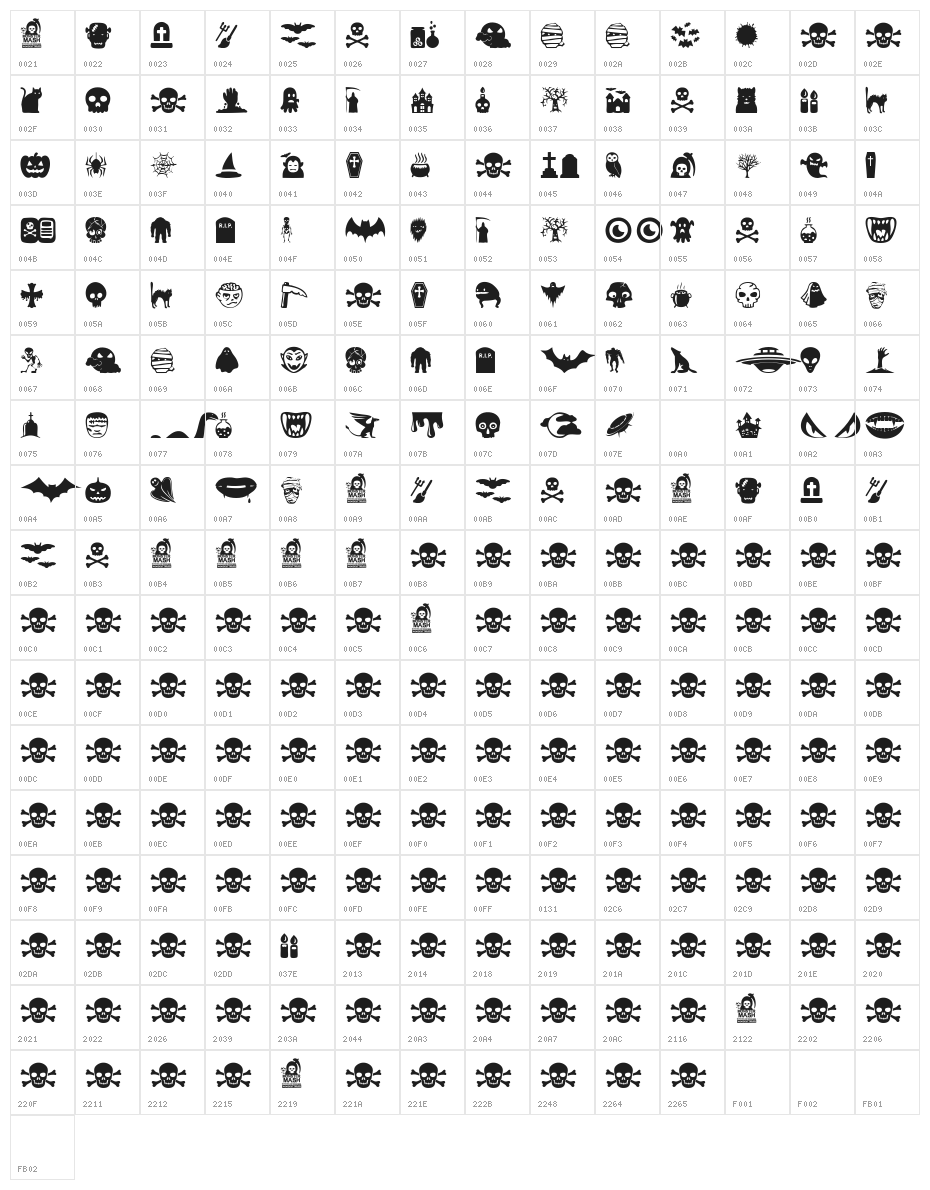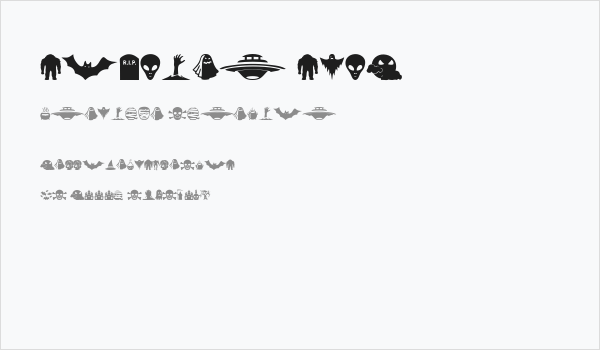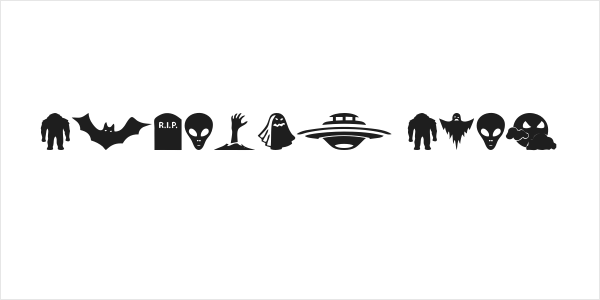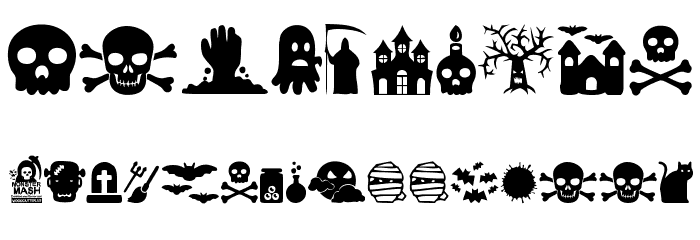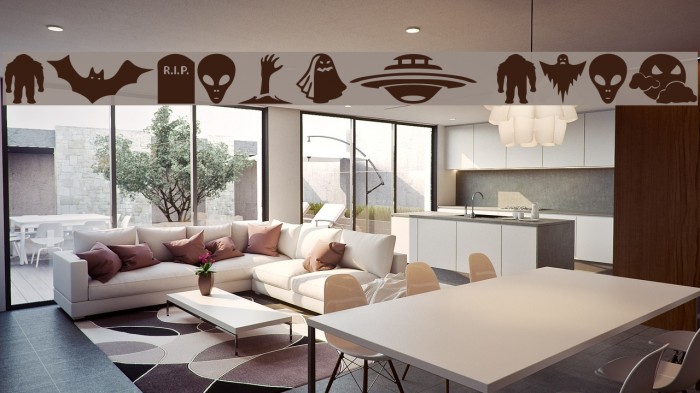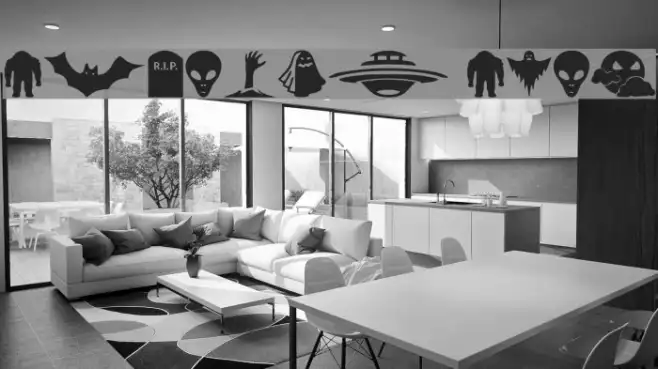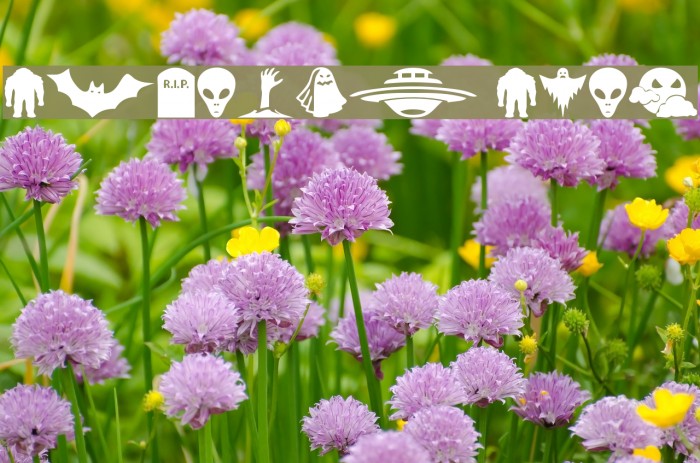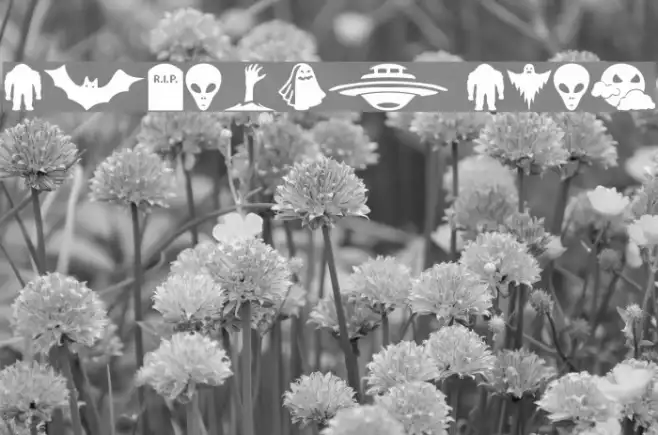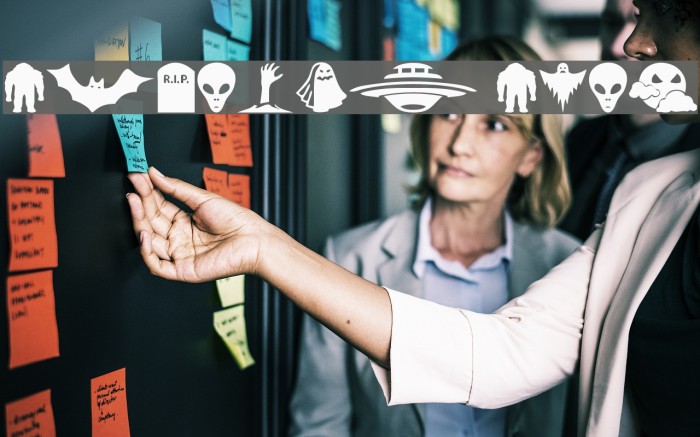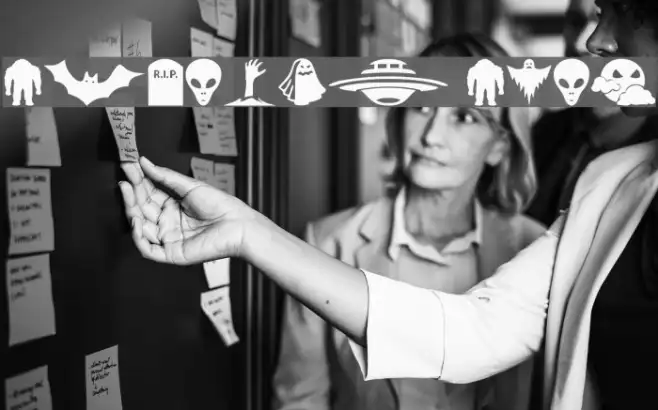
Monster Mash Font
Monster Mash Description
This collection features a playful and spooky array of Halloween-themed icons. Each character is designed with bold, solid black silhouettes, capturing the essence of classic horror motifs. The set includes a variety of symbols such as skulls, bats, ghosts, tombstones, and other eerie elements. The designs are simple yet effective, with a focus on recognizable shapes that convey a sense of fun and fright. These icons are perfect for adding a touch of Halloween spirit to any project, with their clear outlines and distinct forms making them highly versatile. The style is consistent throughout, maintaining a cohesive look that is both decorative and thematic.
| Use Case | Logos, Decorative elements |
| Proposed Projects | Ideal for Halloween party invitations, themed decorations, children's crafts, and seasonal marketing materials. |